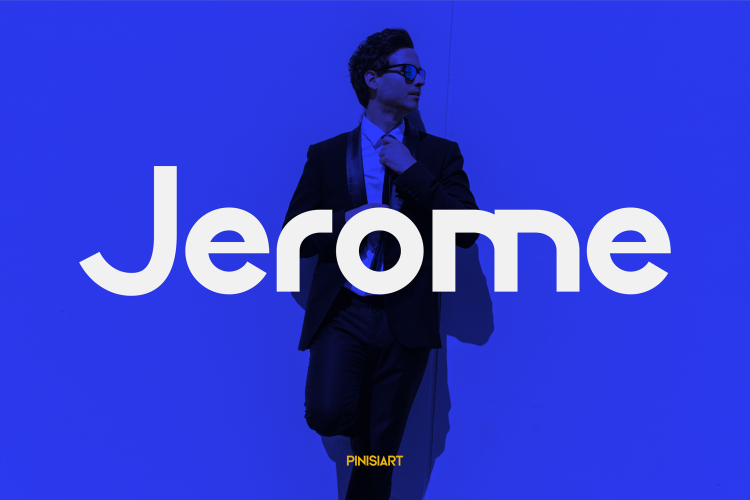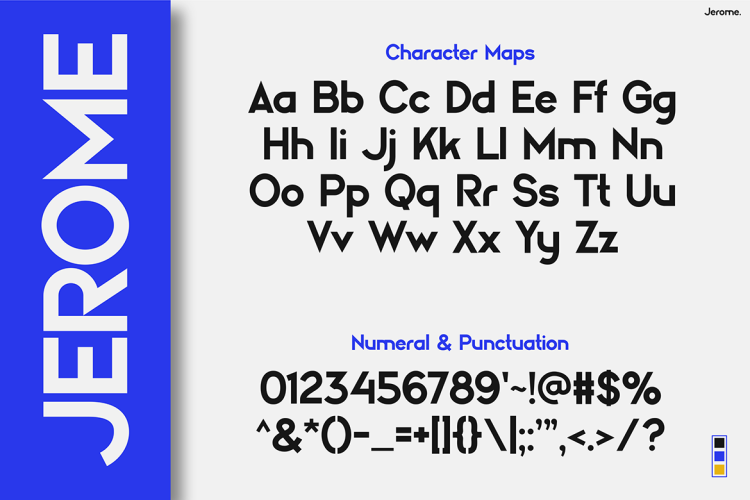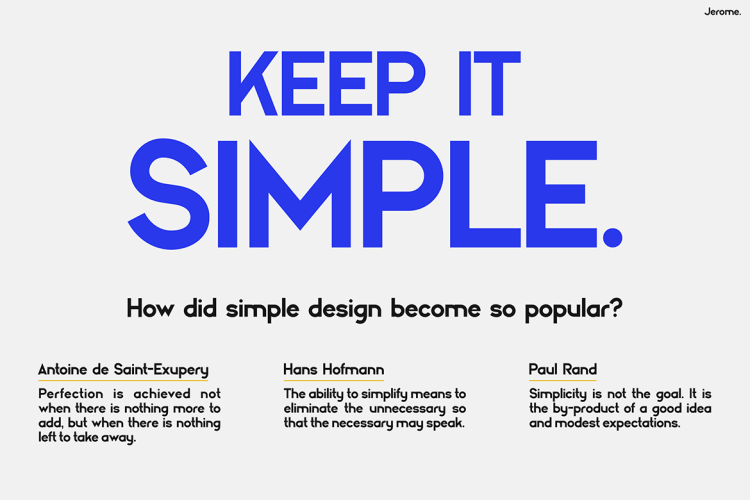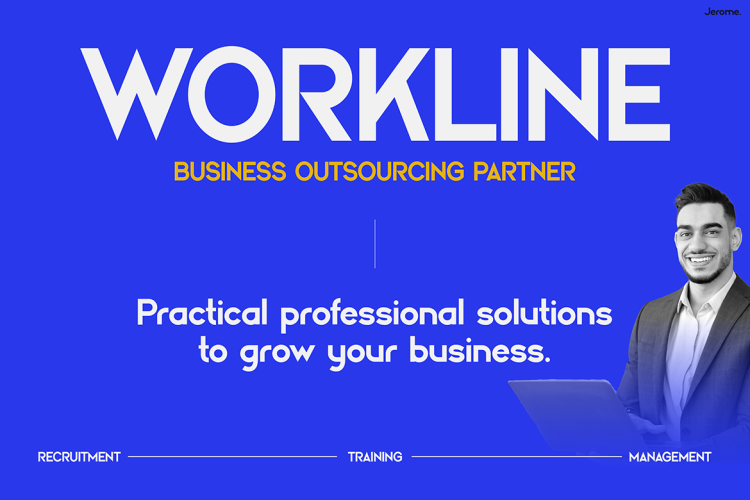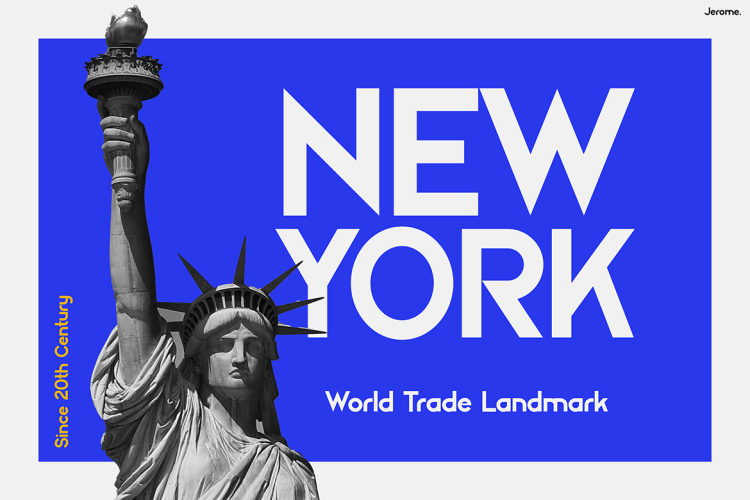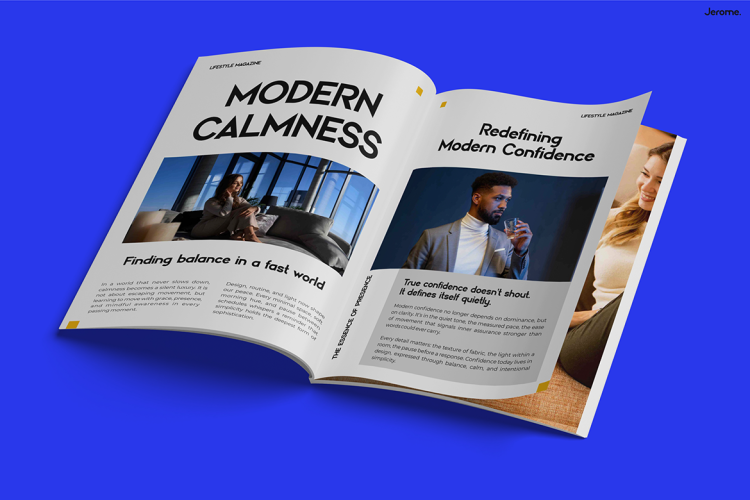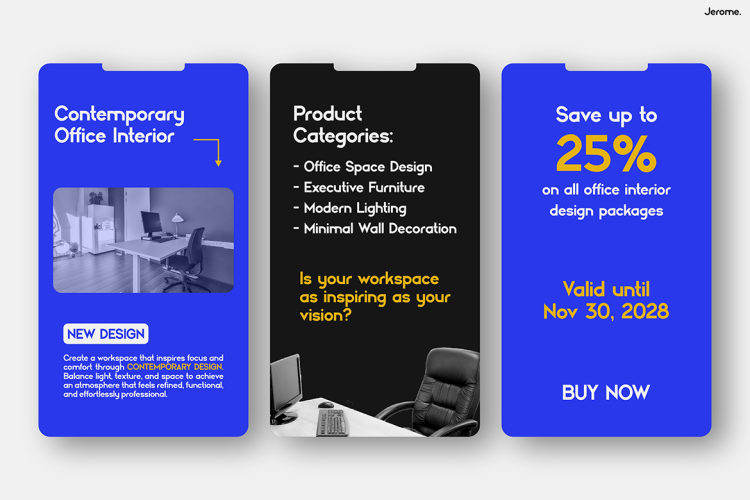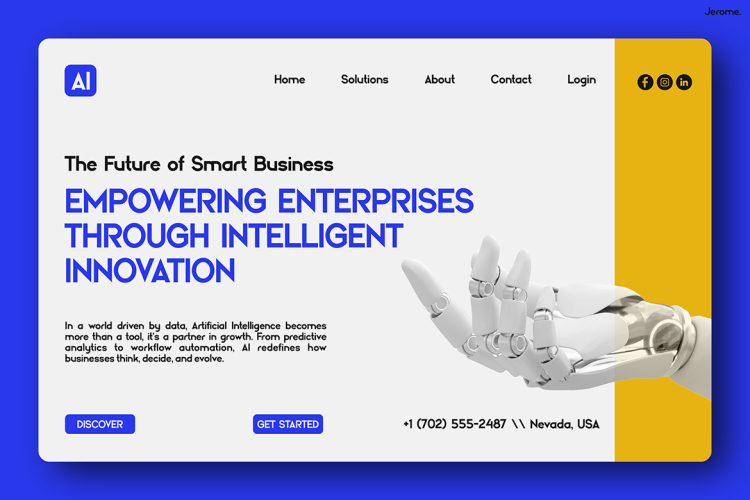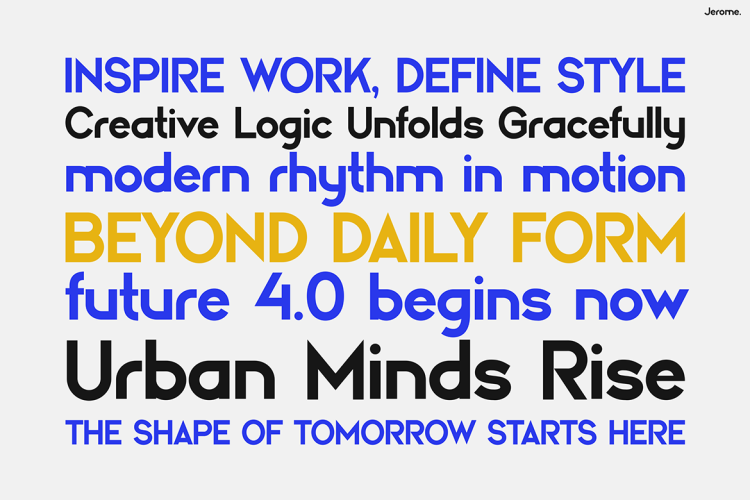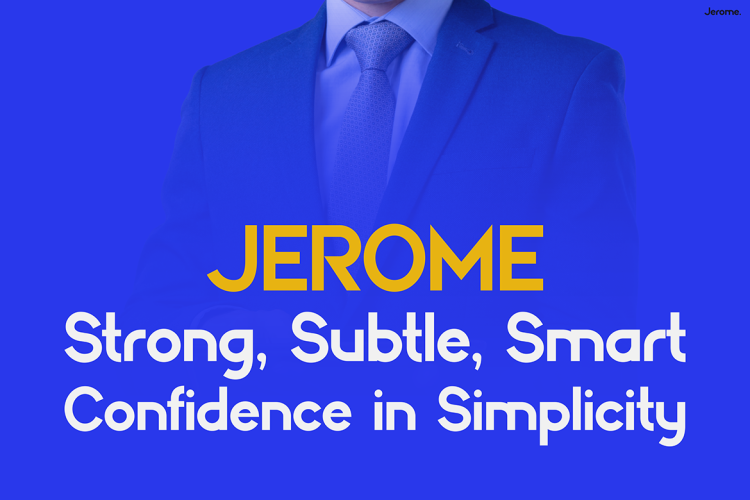
Futuristic Font Jerome โ Bold Design for a Smarter Tomorrow
Futuristic Font Jerome redefines modern typography with a perfect blend of style, structure, and sophistication. This typeface doesnโt just exist โ it leads. Every letter feels intentional, with precise geometry that reflects innovation and confidence. Moreover, its sleek design and smooth balance make it ideal for projects that need a futuristic yet timeless aesthetic. Because of its sharp alignment and clean curves, Jerome delivers clarity that instantly elevates any design.
In addition, its minimalist form carries strength without losing warmth. Each character flows effortlessly, creating a visual experience that feels both bold and refined. As a result, your work gains a distinct edge โ professional, polished, and powerfully modern. Whether youโre designing tech interfaces, futuristic posters, or high-end branding, Futuristic Font Jerome adapts beautifully and ensures your message shines with precision.
Furthermore, Jeromeโs geometric harmony makes it stand out in every context. From bold headlines to subtle taglines, it offers versatility that few fonts can match. Therefore, itโs not just a font โ itโs a creative statement that inspires forward-thinking design.
Perfect For Visionaries and Innovators
Futuristic Font Jerome is perfect for designers, creators, tech entrepreneurs, and innovative brands who value modern elegance. In fact, itโs an ideal choice for logos, business presentations, digital branding, app designs, advertising visuals, editorial layouts, and packaging projects.
Because of its clear structure and futuristic flow, Jerome enhances readability while maintaining a sense of motion and energy. Additionally, it pairs effortlessly with minimalist layouts, helping your content look cohesive and contemporary. If your goal is to express creativity, progress, and professionalism in every detail, Jerome gives your message the voice it deserves.
Closing the Future in Style
Take your designs to the next level with Futuristic Font Jerome โ where precision meets imagination. This isnโt just a typeface; itโs a creative tool built for tomorrowโs visionaries. Moreover, it transforms ordinary words into bold statements that resonate with clarity and confidence. So, dare to design differently, think ahead, and let Jerome guide your visual story into the future.